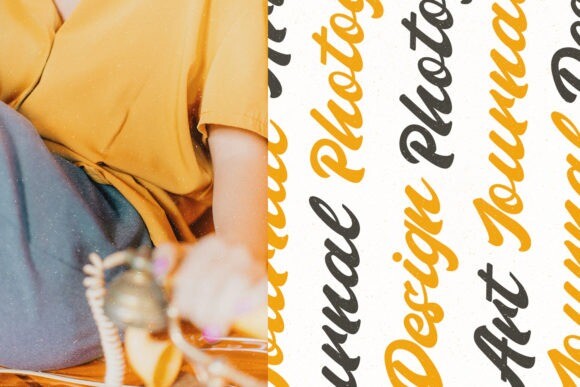
Pahitna Font
Designer: Maulana Creative
Pahitna Font is a gorgeous and bold handwritten font, crafted to give your headlines and logotype projects a stylish touch. This font reads as strong, confident, and dynamic and can add tons of nostalgic character to your designs.